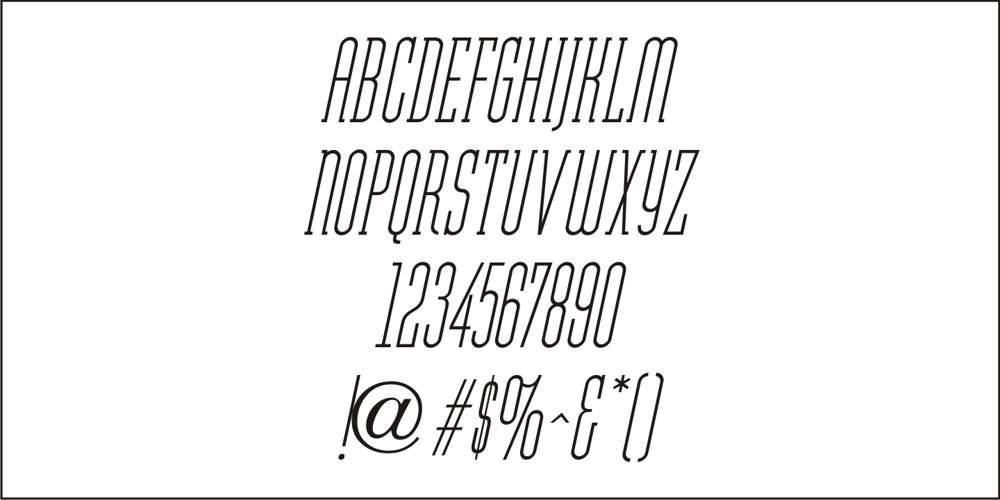
Department Store JNL
Department Store JNL font
Department Store JNL Font Family was designed by Jeff Levine and published by Jeff Levine. Department Store JNL contains 2 styles and family package options. Amongst a number of items for sale in an online auction was a font of metal type featuring a thin, condensed serif font with decidedly Art Deco styling. This was the inspiration for Department Store JNL, which is available in both regular and oblique versions.